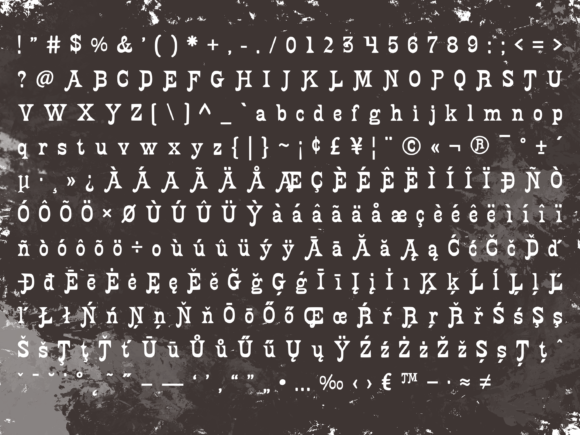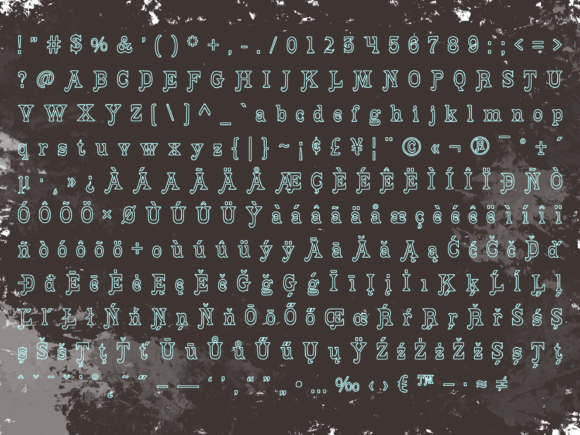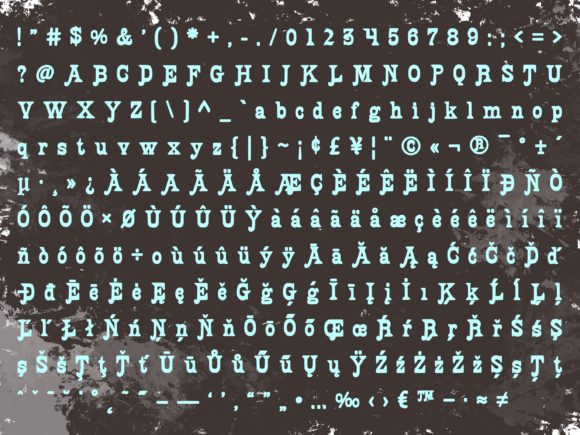
Discover the Charm of Folklore Font: Elevate Your Designs with a Cool and Fun Serif Font
Are you tired of using the same old fonts in your designs? Look no further! Folklore Font is here to add a touch of whimsy and personality to your creations. This cool and fun looking serif font is perfect for designers and crafters who want to make their work stand out from the crowd. In this article, we’ll dive into the world of Folklore Font and explore its features, benefits, and uses.
What is Folklore Font?
Folklore Font is a unique and charming serif font that is sure to capture the attention of your audience. Its distinctive design combines classic serif elements with a playful twist, making it perfect for a wide range of design projects. Whether you’re creating a logo, heading, or body text, Folklore Font is sure to add a touch of personality and flair.
Key Features of Folklore Font
- Unique Serif Design: Folklore Font features a distinctive serif design that sets it apart from other fonts.
- Playful and Fun: This font is perfect for designers who want to add a touch of whimsy to their work.
- Highly Versatile: Folklore Font can be used for a wide range of design projects, from logos and headings to body text and more.
- Easily Readable: Despite its playful design, Folklore Font is highly readable, making it perfect for both digital and print projects.
Benefits of Using Folklore Font
So why should you choose Folklore Font for your next design project? Here are just a few benefits of using this amazing font:
- Adds Personality to Your Designs: Folklore Font is the perfect way to add a touch of personality and whimsy to your designs.
- Stand Out from the Crowd: With its unique design, Folklore Font is sure to make your work stand out from the crowd.
- Perfect for Creative Projects: Whether you’re working on a logo, brochure, or website, Folklore Font is perfect for creative projects that require a playful touch.
- Easily Customizable: Folklore Font is highly customizable, making it easy to adjust to suit your design needs.
Uses of Folklore Font
Folklore Font is a highly versatile font that can be used for a wide range of design projects, including:
- Logos and Branding: Use Folklore Font to create a unique and memorable logo that reflects your brand’s personality.
- Headings and Titles: Add a touch of whimsy to your headings and titles with Folklore Font.
- Body Text: Use Folklore Font for body text to add a playful touch to your designs.
- Digital and Print Projects: Folklore Font is perfect for both digital and print projects, including brochures, flyers, and more.
Tips for Using Folklore Font
Here are a few tips for getting the most out of Folklore Font:
- Experiment with Different Sizes: Try out Folklore Font in different sizes to see how it looks in various contexts.
- Pair with Other Fonts: Experiment with pairing Folklore Font with other fonts to create a unique and interesting design.
- Use for Headings and Titles: Use Folklore Font for headings and titles to add a touch of whimsy to your designs.
| Font Name | Folklore Font |
| Author | The Tenacious Type Studio |
In conclusion, Folklore Font is a cool and fun looking serif font that is sure to add a touch of personality and whimsy to your designs. With its unique design, high versatility, and ease of use, Folklore Font is perfect for designers and crafters who want to make their work stand out from the crowd. So why not give it a try and see the amazing results for yourself?